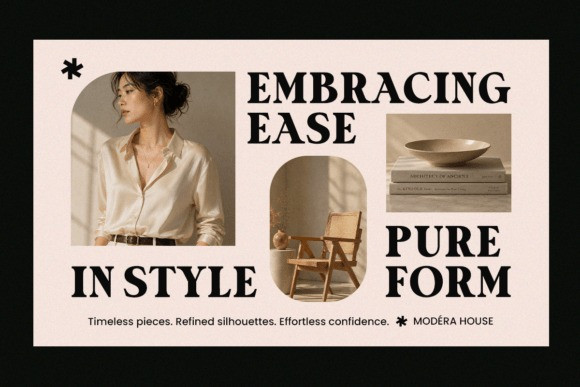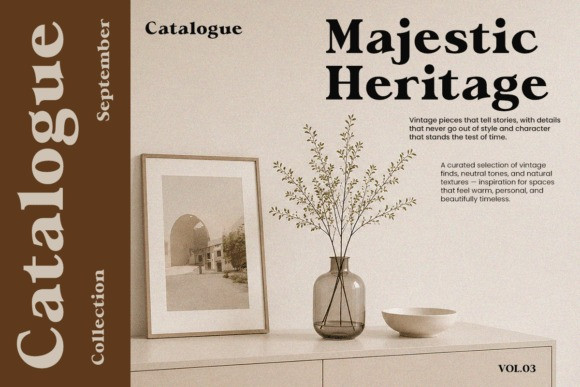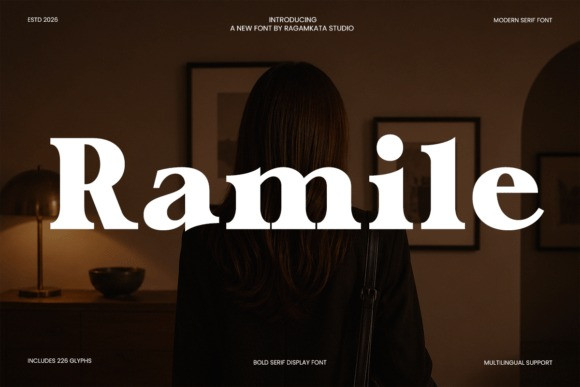
Ramile Font
Ramile Font a bold modern serif display font crafted to deliver elegance, confidence, and timeless sophistication. Ramile is perfectly suited for luxury branding, fashion campaigns, magazine headlines, cosmetic packaging, premium product labels, logo creation, hotel identity systems, invitation designs, and sophisticated social media visuals. The combination of classic serif elegance with modern display styling makes this typeface highly versatile for both commercial and creative design applications where prestige and clarity matter.
Whether used for luxury branding, boutique packaging, fashion promotions, or cinematic poster design, this font brings authority, elegance, and contemporary sophistication to every project.